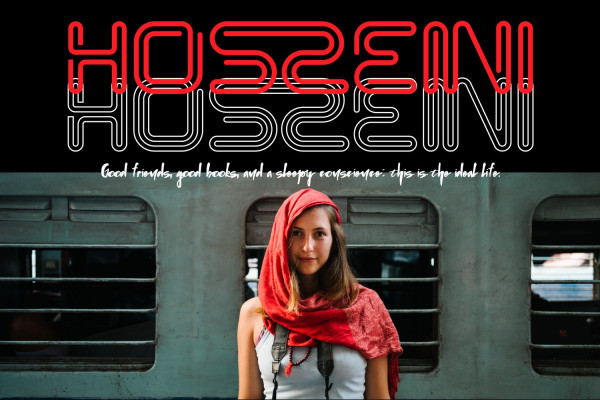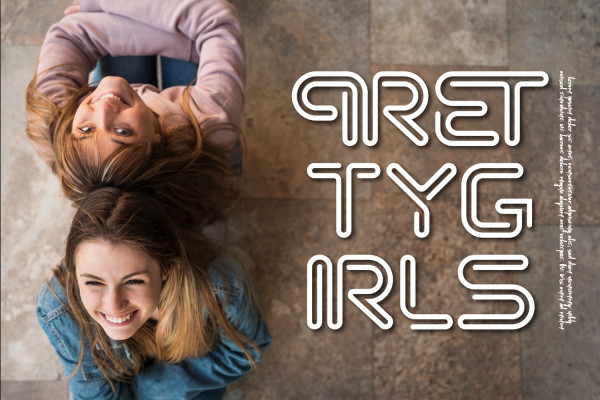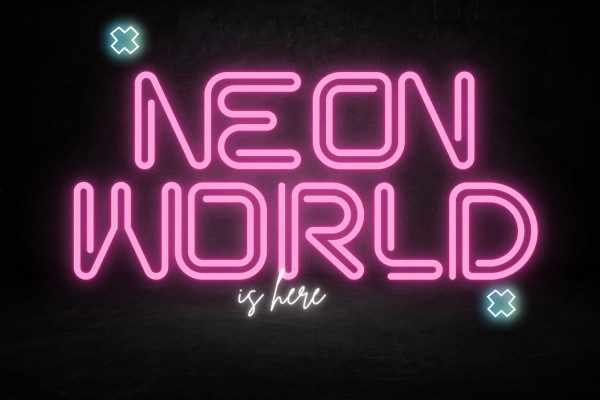
Neon World Font
Neon World Font – Neon Light Font inspired by real world neon light signs, it features minimal letter forms with smooth rounded corners and, true to real neon tubes, strictly uses lines with open start and end points. This font is perfect for adding your own glowing light effects or can be used to actually design real world neon signs. Perfect for your project and allows you to create designs, headlines, posters, logos, badges, t-shirts and many more that are beautiful. It is also best used for posts, logos, posters, certificates, labels and more.
Neon World was built with OpenType features and includes 100 ligatures, alternate, numbers, punctuation, and it also supports other languages.